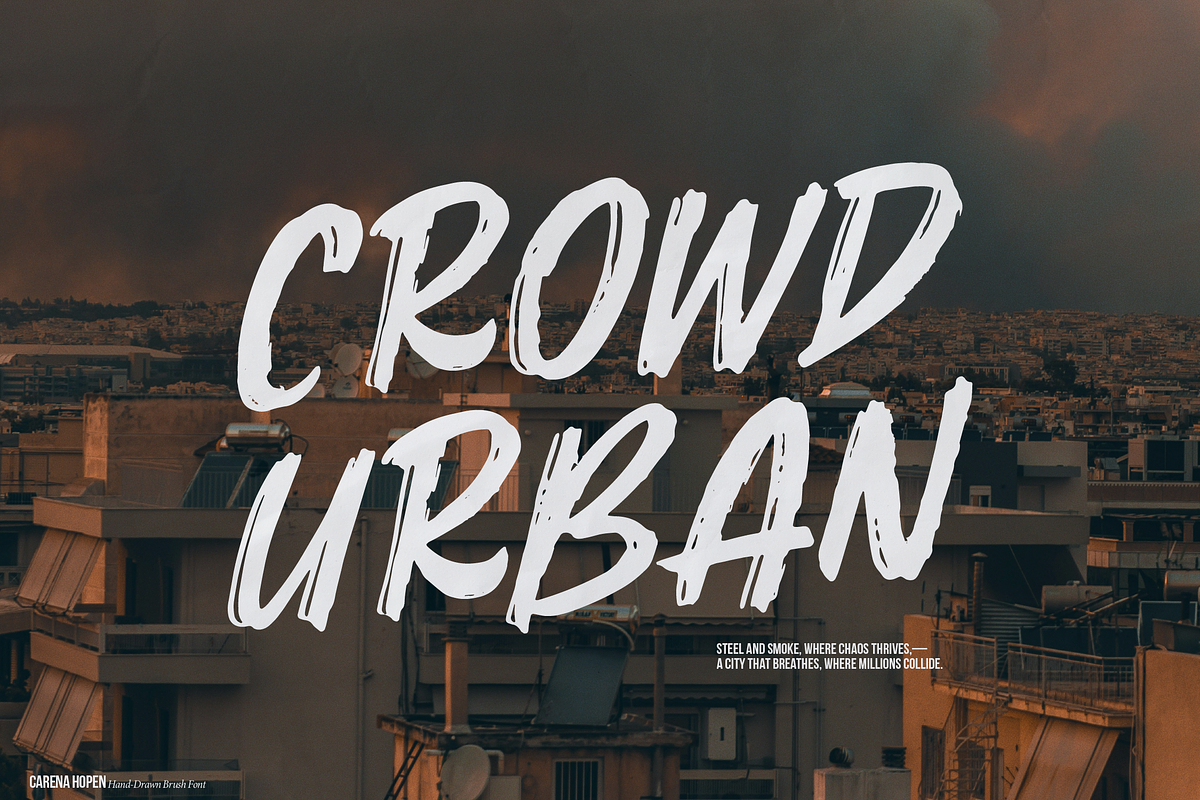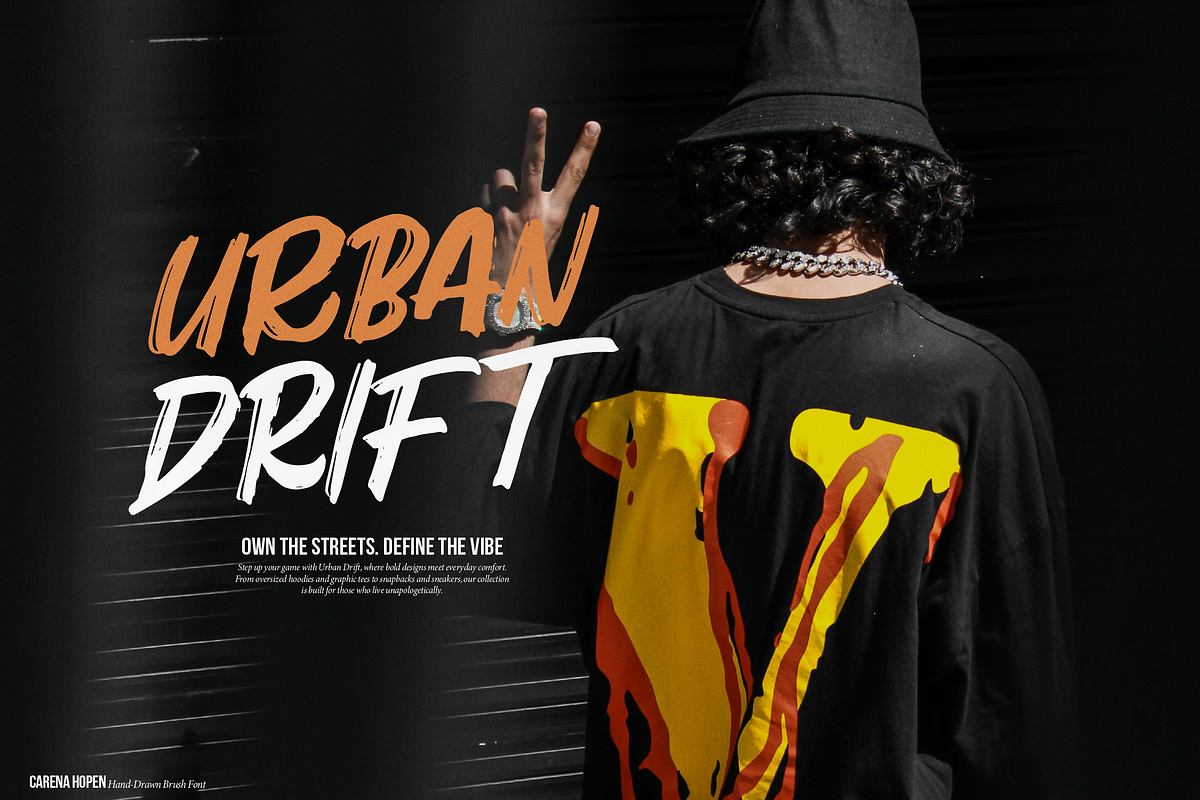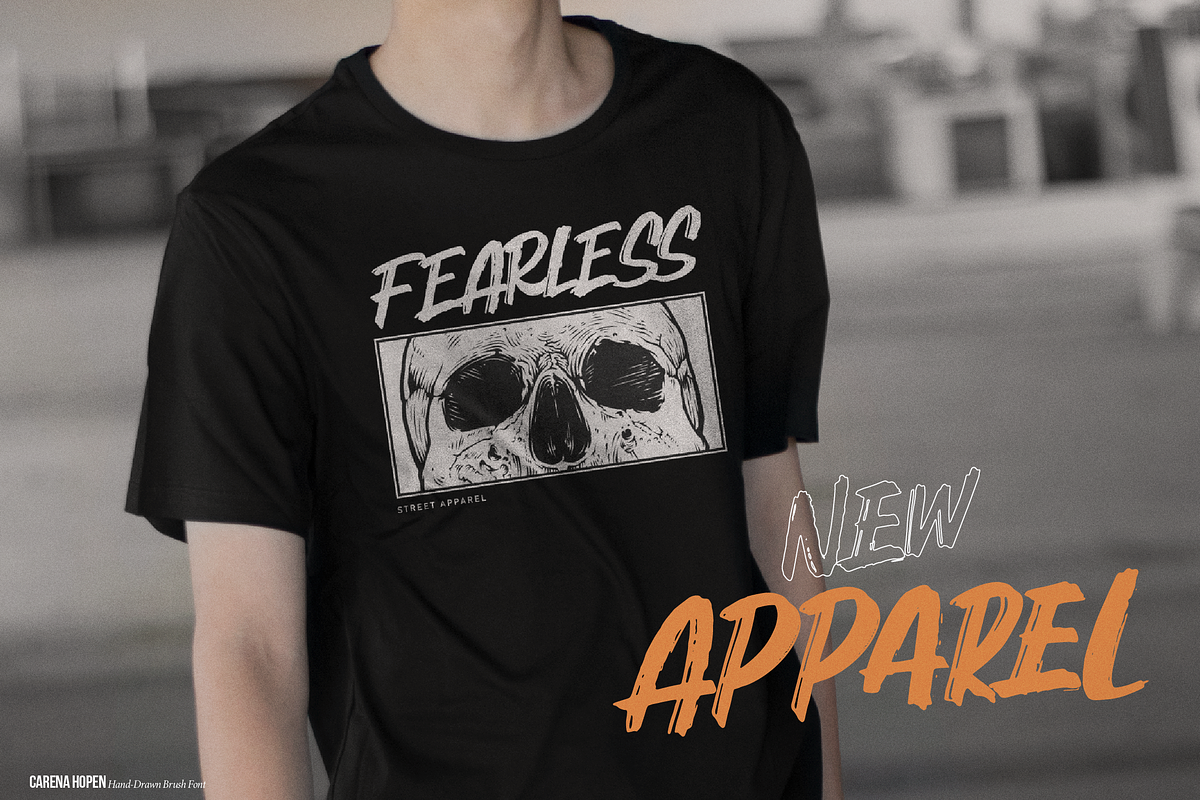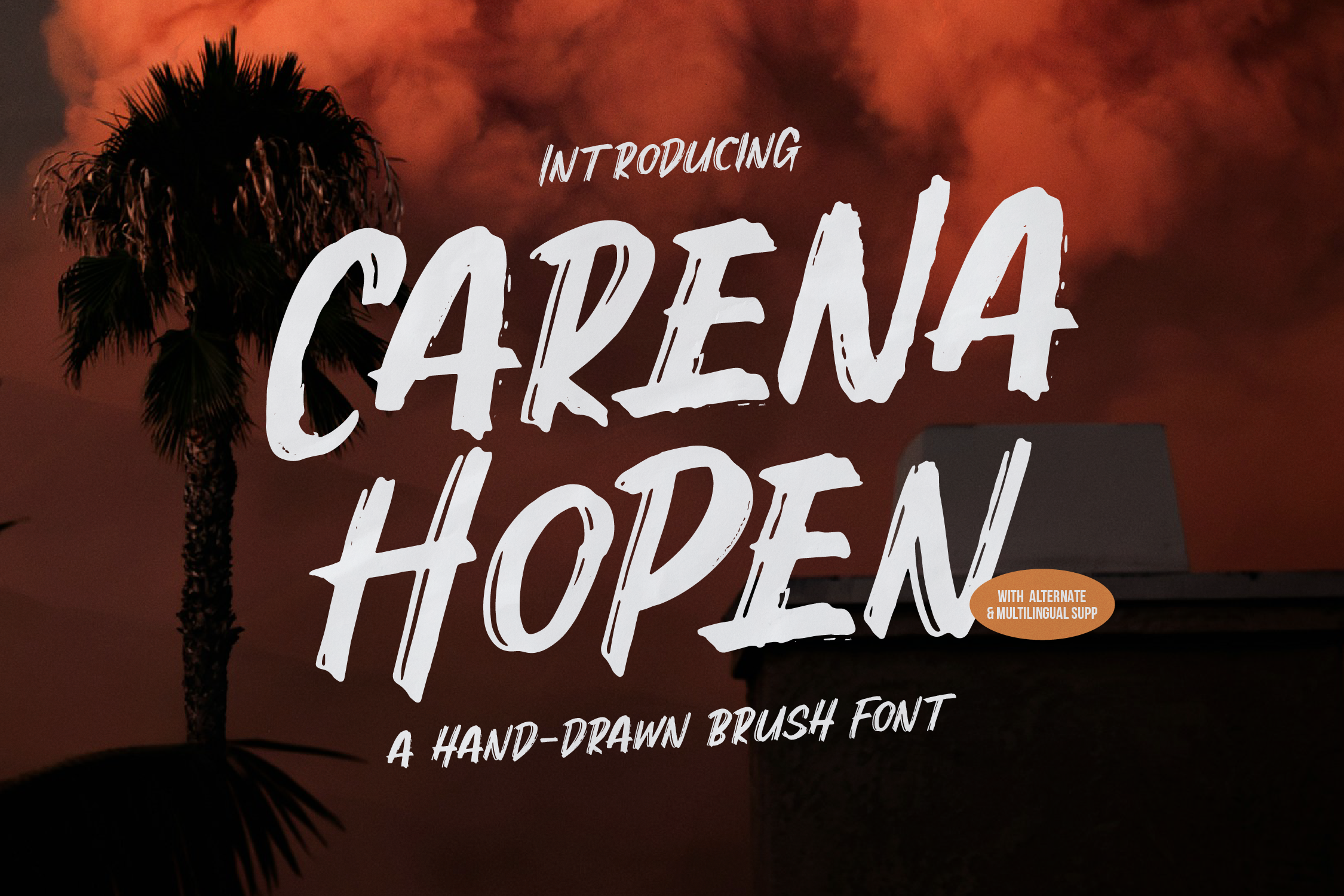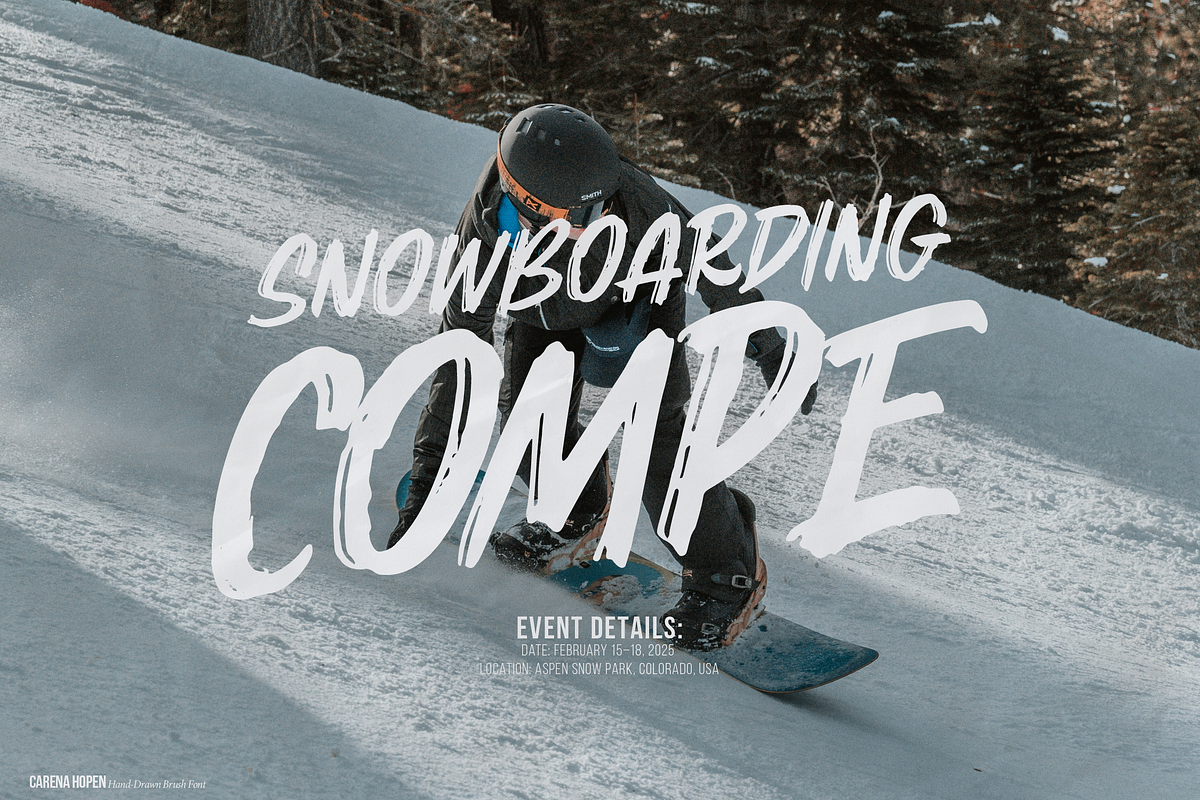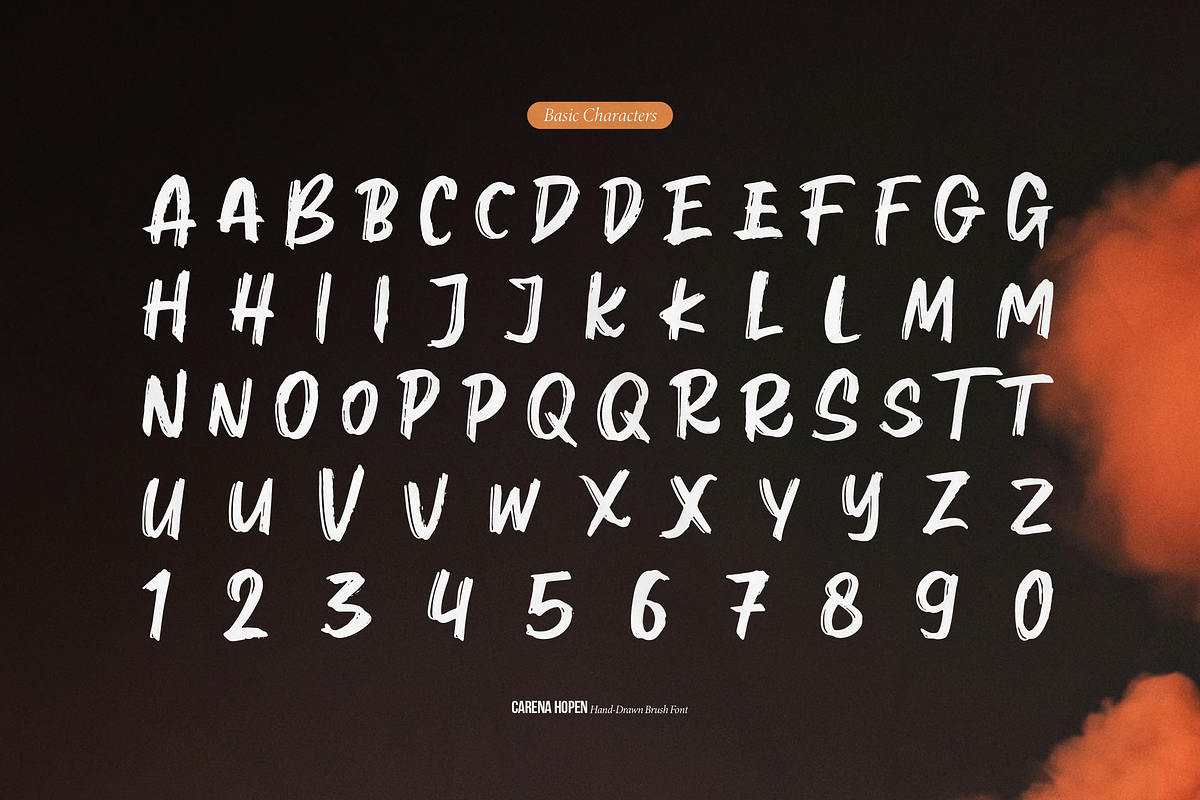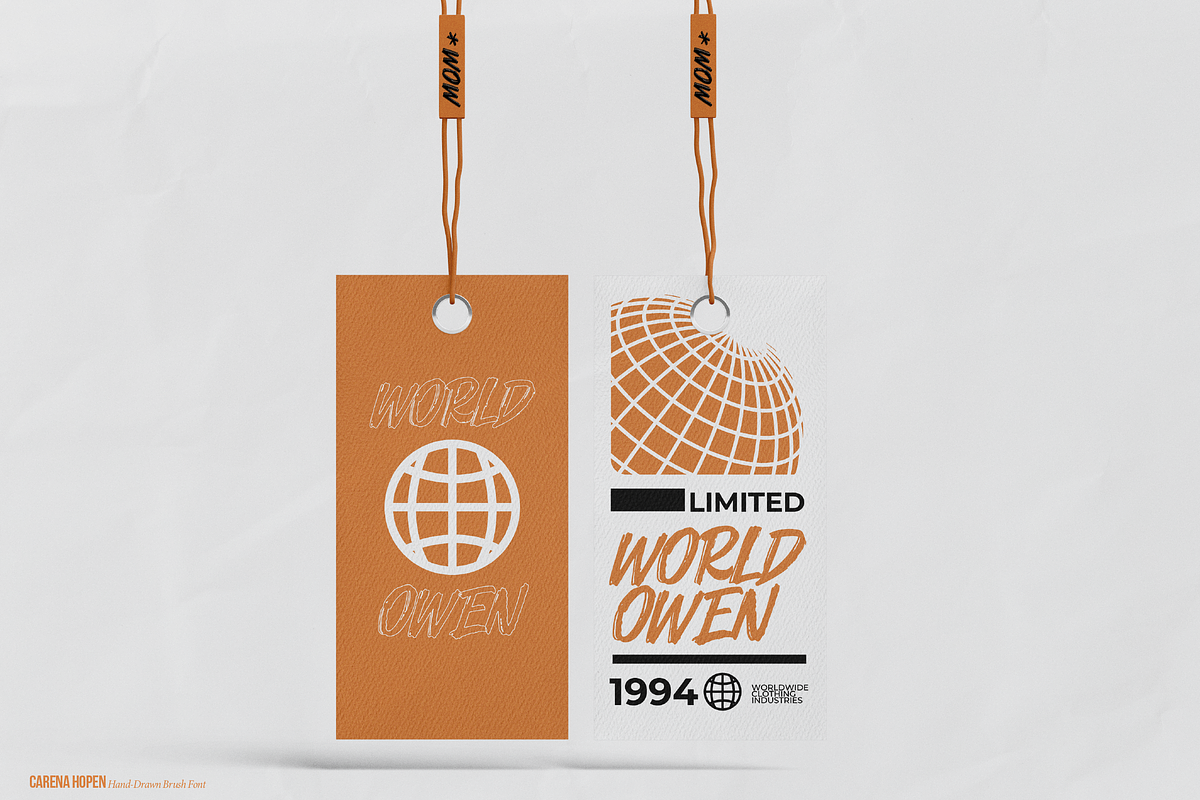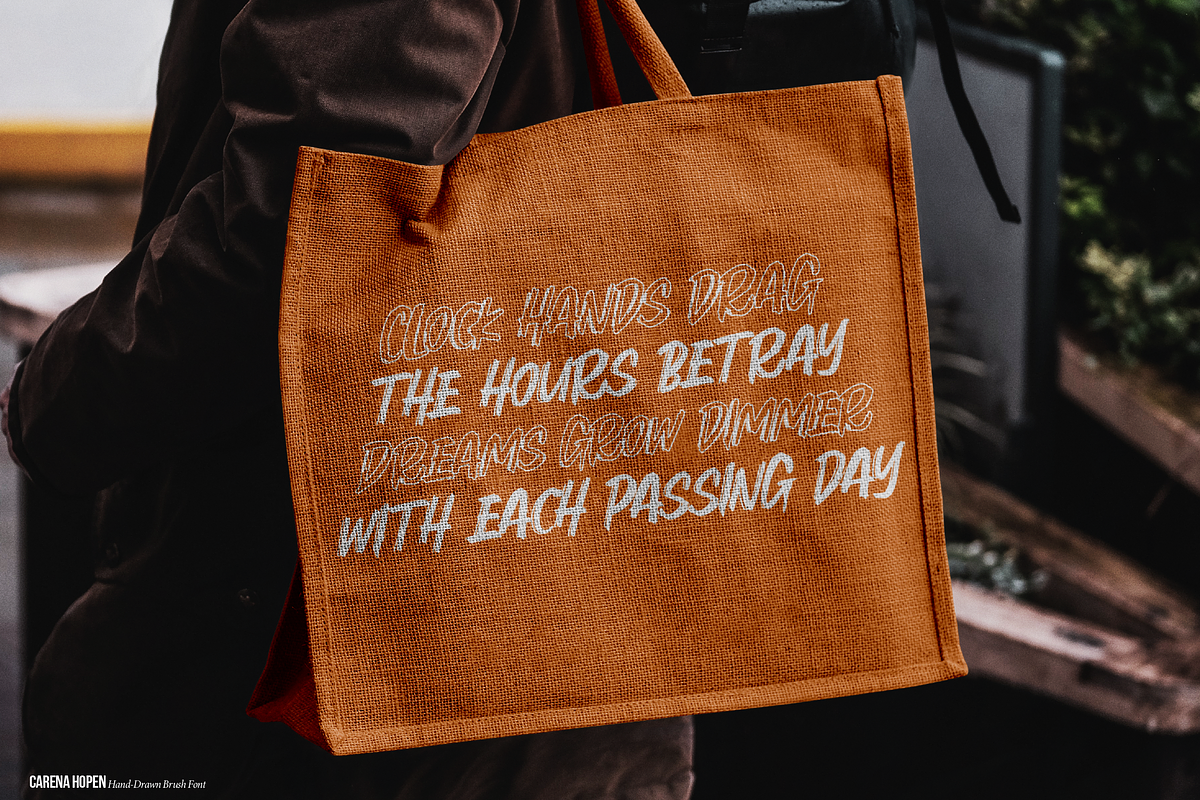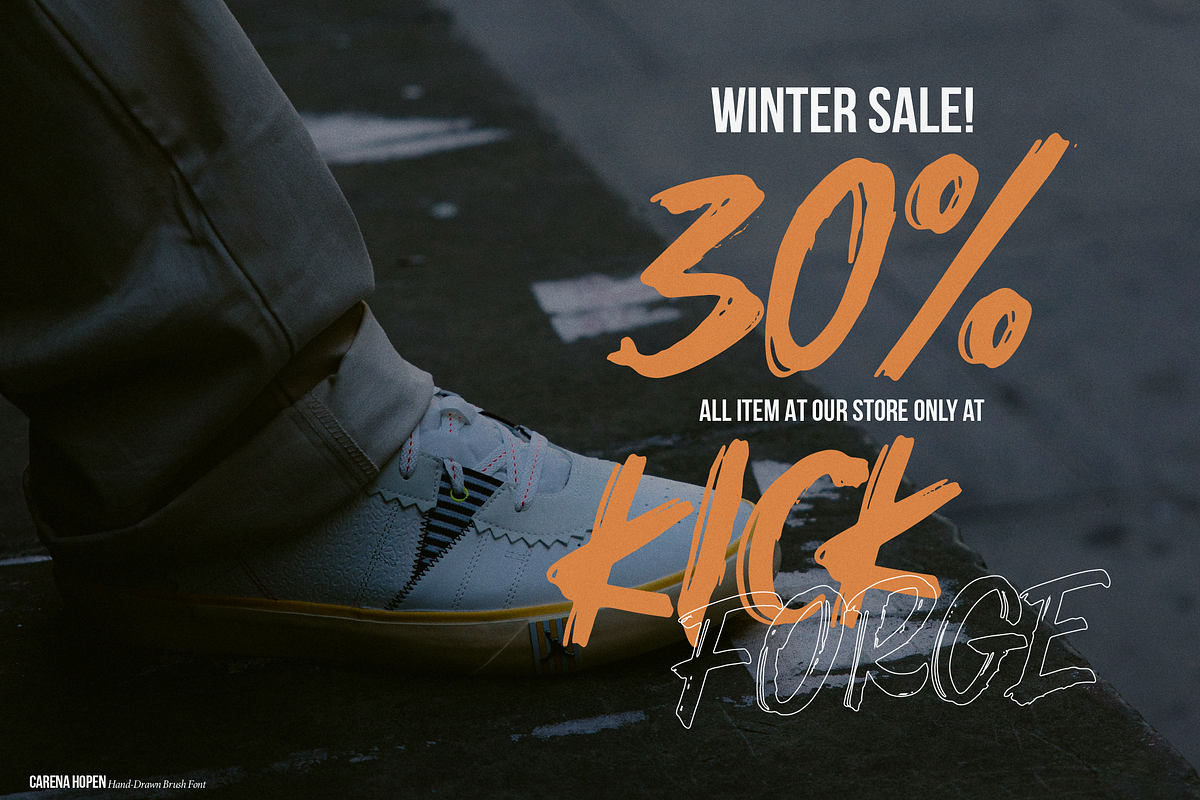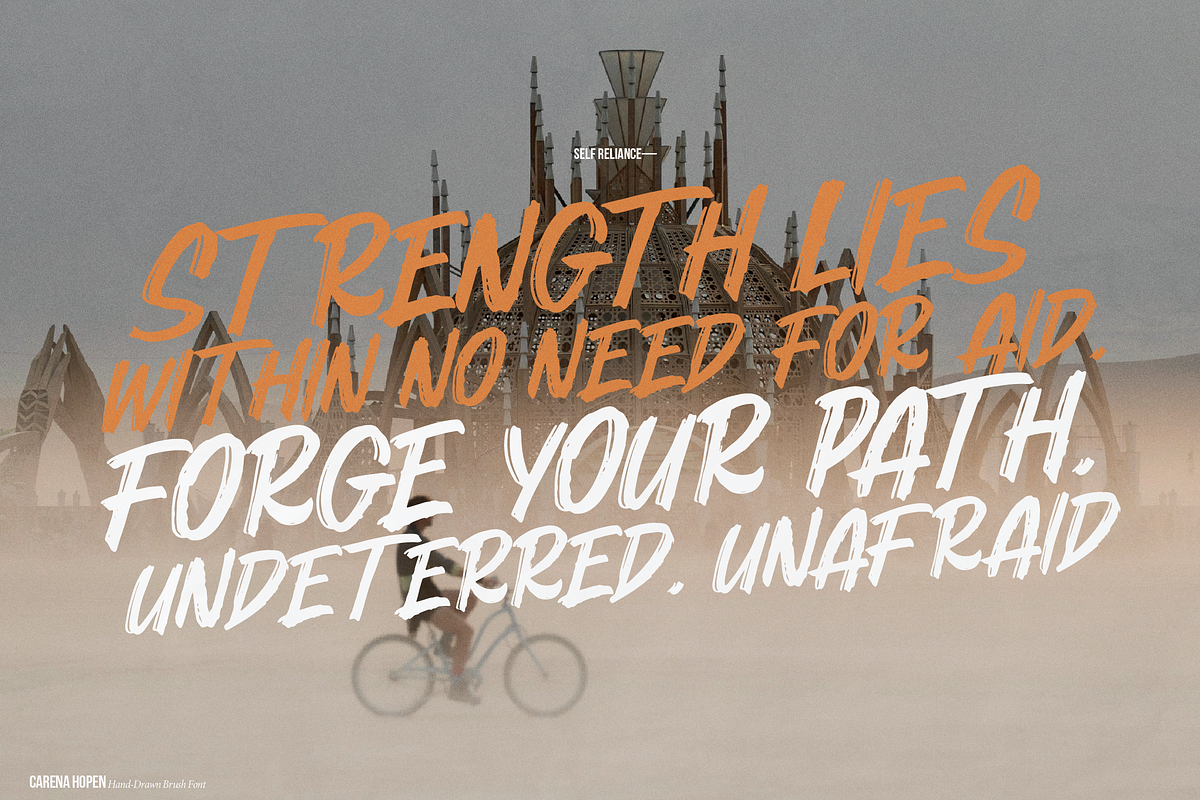
Carena Hopen | Hand Drawn Brush Font
Carena Hopen | Hand Drawn Brush Font, from Gracetypestudio, suitable for any projects such as: logos, branding projects, homeware designs, product packaging, mugs, quotes, posters, shopping bags, t-shirts, book covers, name card, invitation cards, greeting cards, label, photography, watermark, special events, and all your other lovely projects that need a Hand Drawn Brush Font taste.